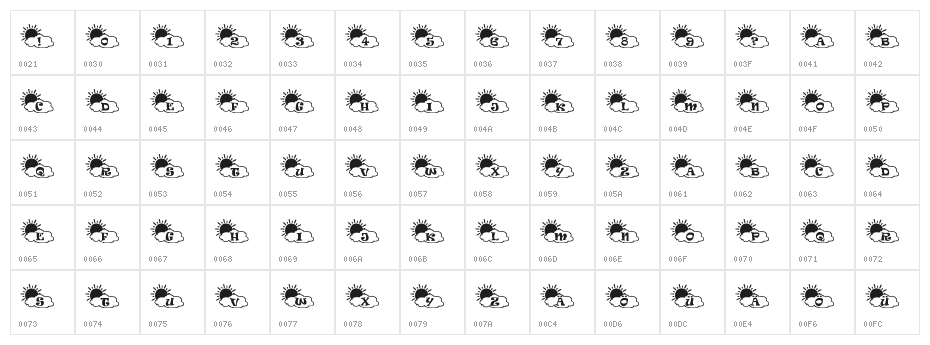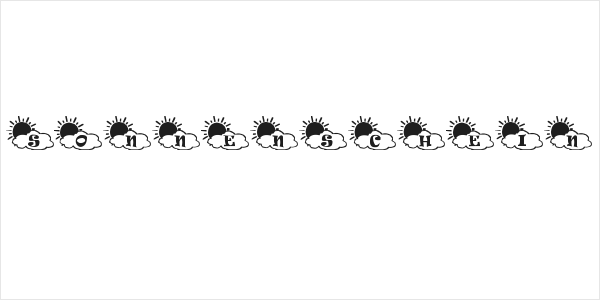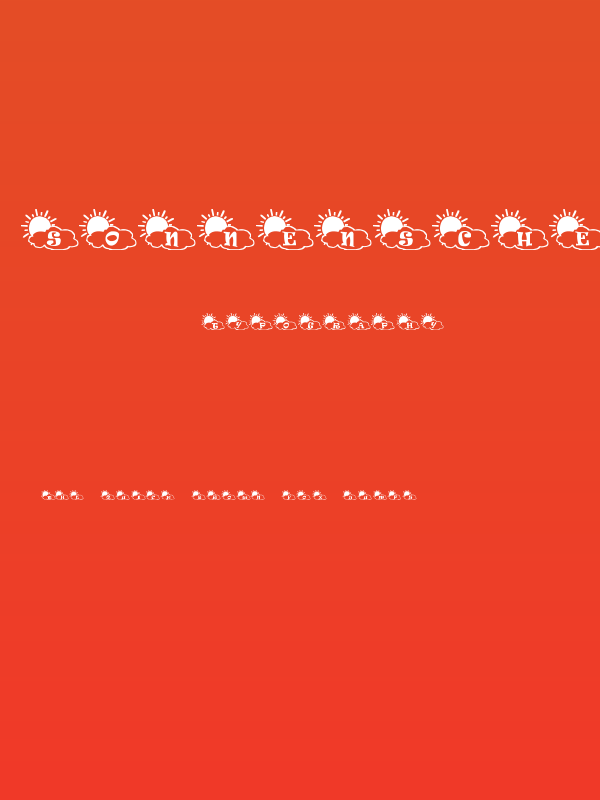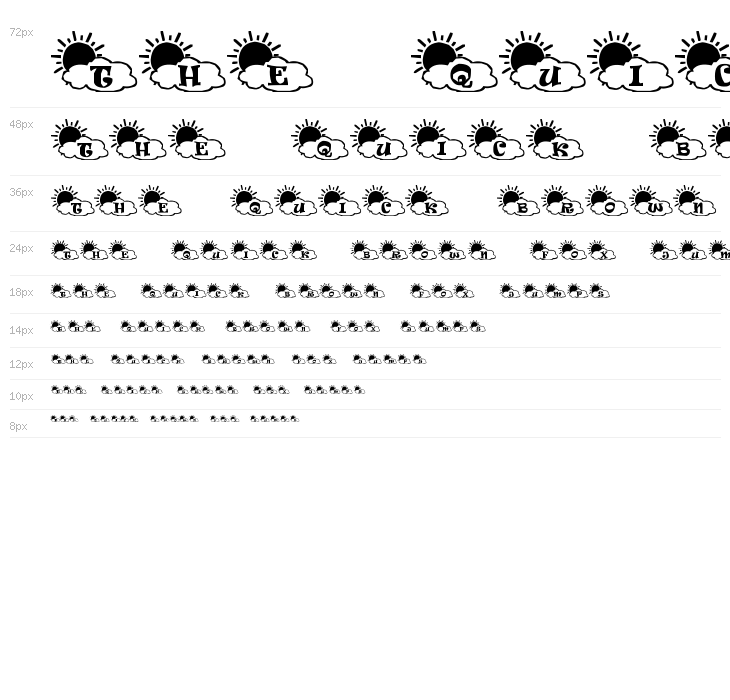
Sonnenschein Font
Sonnenschein Description
This playful and decorative font features each character enclosed within a cloud, with a sun peeking over the top. The design is whimsical, combining a bold, cartoonish style with a cheerful theme. Each letter and number is distinct, with a consistent use of the sun and cloud motif, making it ideal for projects that require a fun and lighthearted touch. The characters are bold and easily readable, with a uniform thickness that ensures clarity. The overall design is unique, making it stand out in creative projects.
| Proposed Projects | Ideal for children's books, playful invitations, greeting cards, and educational materials. |